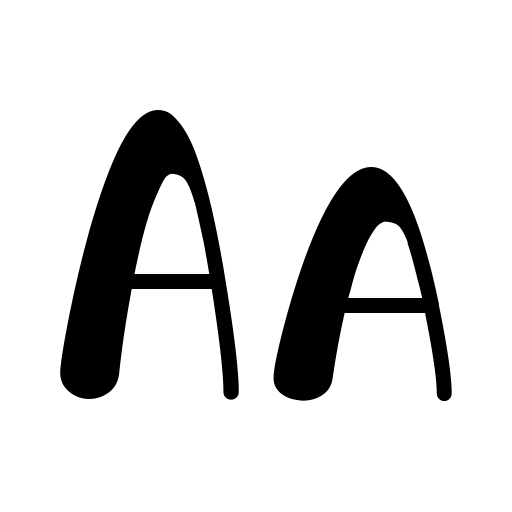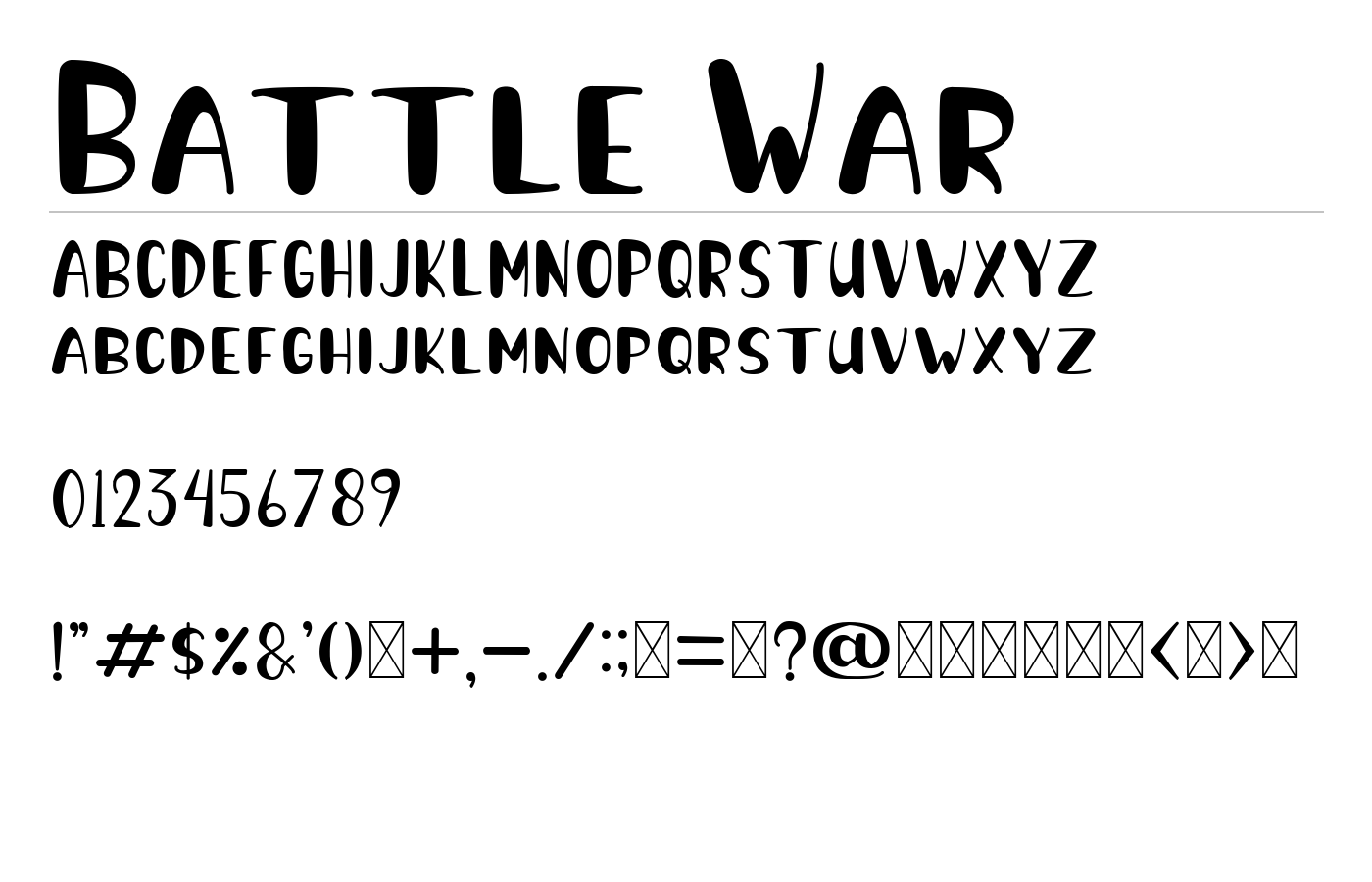
Battle War Font is a playful, hand-drawn sans serif typeface with a casual and slightly quirky feel. Its irregular strokes and tall, narrow characters give it an energetic and informal personality, making it perfect for fun, youthful designs such as posters, comic titles, or adventure-themed projects. This font works well for attention-grabbing headlines or branding that aims to convey a sense of creativity and spirited enthusiasm.
Battle War Font
About Battle War Font